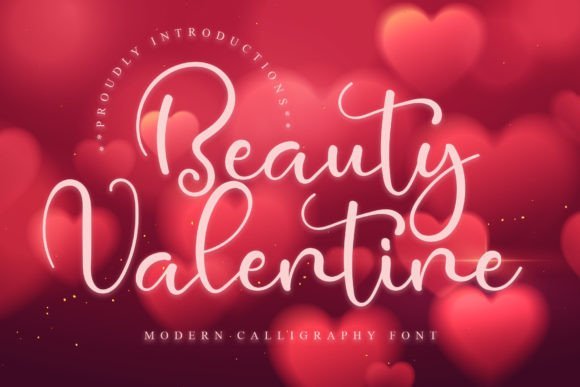
Love at First Sight: The Allure of Beauty Valentine Font
There’s something magical about finding the perfect font for a design project. The moment when all the elements come together, and the words spring to life with a new sense of personality. For designers, this moment is what makes all the hard work worth it.
Introducing Beauty Valentine Font, a stunning handwritten font that captures the essence of timeless classic calligraphy. With its balanced and varied style, this font is designed to elevate the beauty of your projects and leave a lasting impression. Whether you’re working on a romantic wedding invitation or a trendy fashion campaign, Beauty Valentine Font is the perfect companion to bring your vision to life.
As a designer, you understand the value of a well-chosen font in making your projects truly special. Beauty Valentine Font is a valuable addition to your toolkit, offering a unique blend of style and sophistication that’s sure to impress.
Key Features of Beauty Valentine Font
- Unique Characteristics: Beauty Valentine Font features a unique, elegant, and romantic design, with intricate details and ornate flourishes, making it perfect for wedding invitations, Valentine’s Day cards, and other special occasions.
- Font Style: The font has a mix of script and serif styles, adding to its beauty and sophistication, and making it suitable for both formal and informal applications.
Beauty Valentine Font Review
Overall, I’m really impressed with the Beauty Valentine Font. It’s a beautiful, elegant font that’s perfect for creating a romantic atmosphere. ✨ The font has a classic feel to it, with intricate details and a soft, feminine touch.
The font is well-suited for use in wedding invitations, greeting cards, and other romantic designs. It’s also great for creating a whimsical, vintage feel in your designs. ✨ The font is highly customizable, allowing you to adjust the size, color, and style to fit your needs.
Limits and Challenges
While the Beauty Valentine Font is a great addition to any designer’s toolkit, there are a few limitations to be aware of. ⚠️ One of the main issues is that the font can be a bit difficult to read at smaller sizes, due to its intricate details.
Another limitation is that the font may not be suitable for use in modern or minimalist designs, as it has a distinctly vintage feel. ⚠️ Additionally, the font may not be compatible with all operating systems or software, which can be a challenge for designers who work with a variety of platforms.
In conclusion, I’m really impressed with the Beauty Valentine Font. While it has some limitations, it’s a beautiful and highly customizable font that’s perfect for creating romantic and whimsical designs.
- Beautiful, elegant design
- Perfect for romantic and whimsical designs
- Classic, vintage feel
- Soft, feminine touch
Practical Application Guide: Beauty Valentine Font
Tips for Getting the Most Out of the Beauty Valentine Font
For the best results, use the Beauty Valentine Font in conjunction with a romantic or whimsical design theme.
Consider pairing the font with a pastel color scheme or floral patterns to add to the romantic feel.
For optimal readability, we recommend using the Beauty Valentine Font at a minimum size of 12 points. A line height of 1.2 to 1.5 times the font size is also recommended to ensure clear spacing between lines of text.